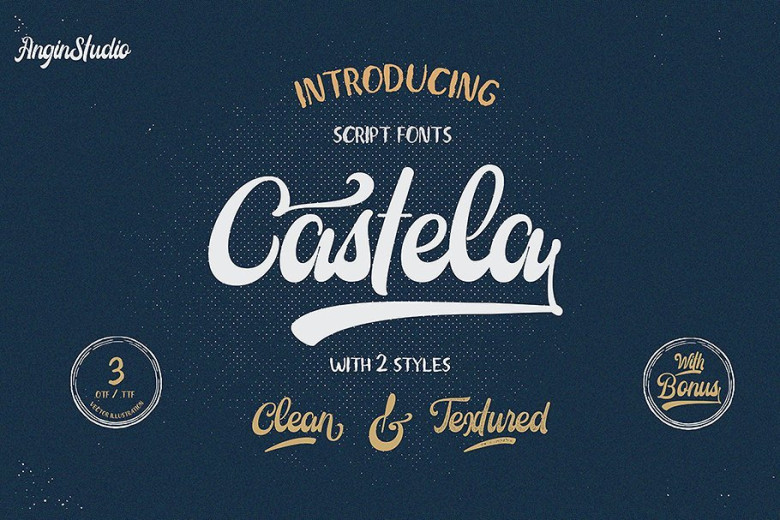
Castela Script Demo Font
Castela Font– This is hand-drawn fonts truly give off a real personal touch to your projects. You can create perfect and unique design . Castela Script Demo Font is script fonts that created with a fluffy looks, this fonts inspired by both modern and vintage packaging. Castela is created carefully to have a look that make you fell something. It is perfect used for various purposes such as editorial design, branding, art quote, book / cover title, poster, apparel design, product packaging, label, special events or anything that need hand-drawn taste.